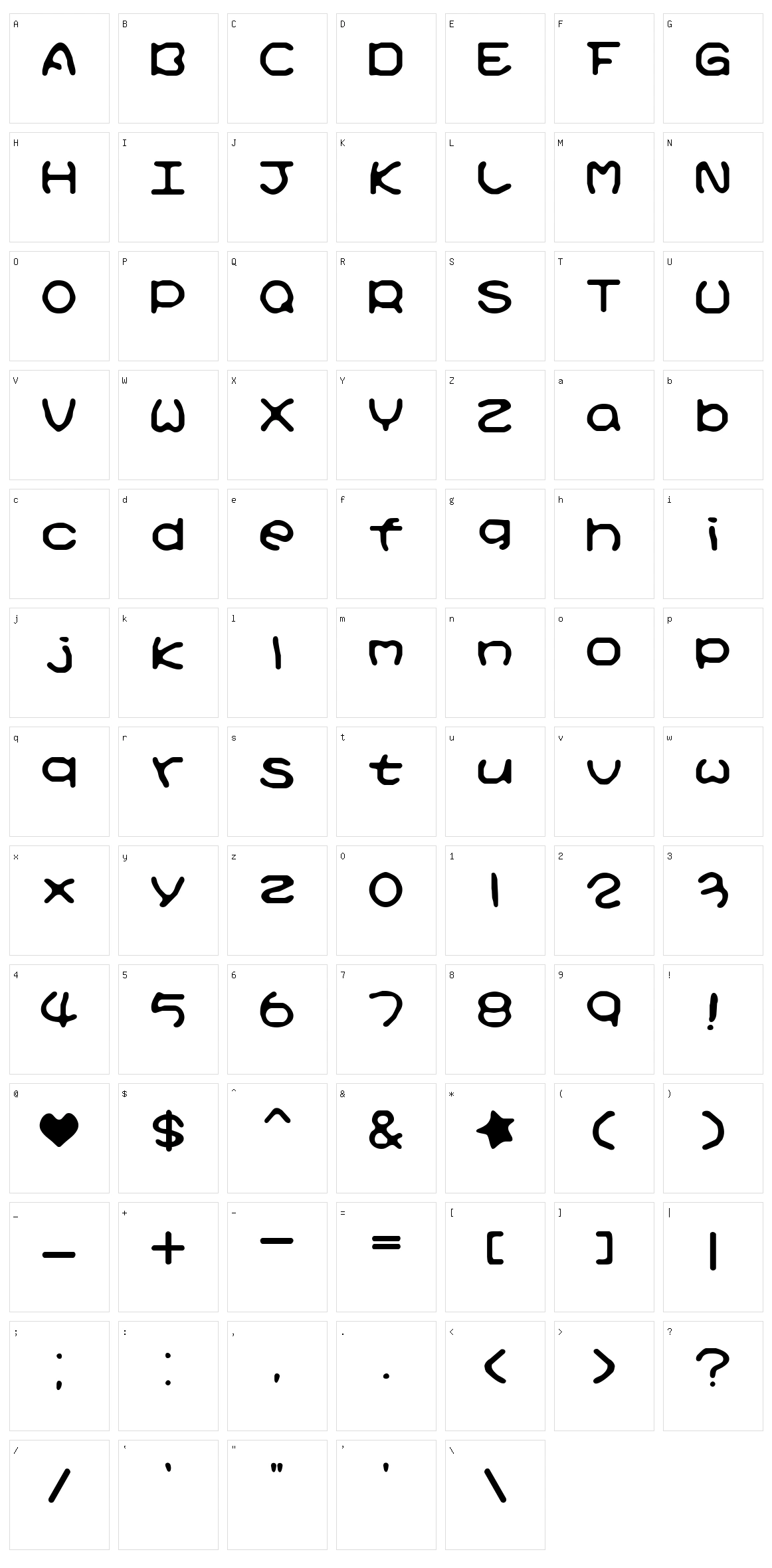
Kirby No Kira Kizzu Compiled by Brian Kent
The characters in this font are from the game 'Kirby No
Kira Kizzu' for the Super Famicom (SFC) [the game was made
into a Game Boy game in the US called "Kirby's Star Stacker"].
In the SFC version, you are able to use English characters
as well as Japanese characters when you put in your name, so
I made a Font out of the English characters because I think
that they looked cool.